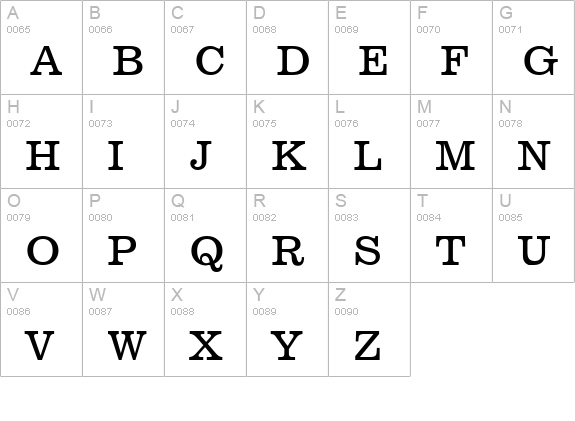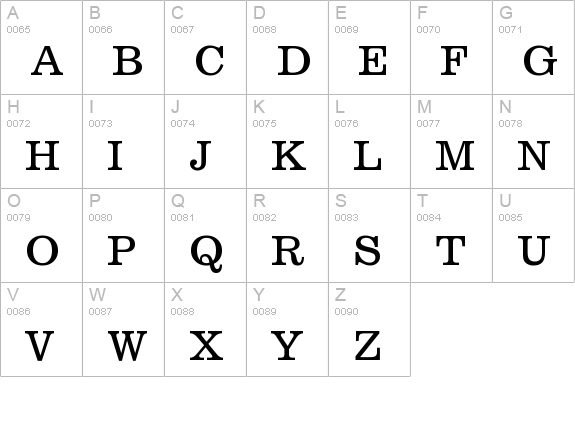
Broadcast Normal is the standard, neutral variant in the Broadcast typeface family \xE2\x80\x94 well suited to general body text, paragraphs, and standard typographic work.
The Broadcast Normal font is a versatile and modern typeface that exudes a sense of sophistication and professionalism. Its clean lines and balanced proportions make it perfect for a wide range of design projects, from branding to editorial design. The Broadcast Normal font offers a timeless appeal that will elevate any project it is used in. Best of all, this font is available for free download at FontsMarket.com. Whether you are a seasoned designer or just starting out, the Broadcast Normal font is a valuable addition to your font library. Embrace the sleek and stylish look of this font and take your designs to the next level with ease. Download the Broadcast Normal font today and see the difference it can make in your projects!